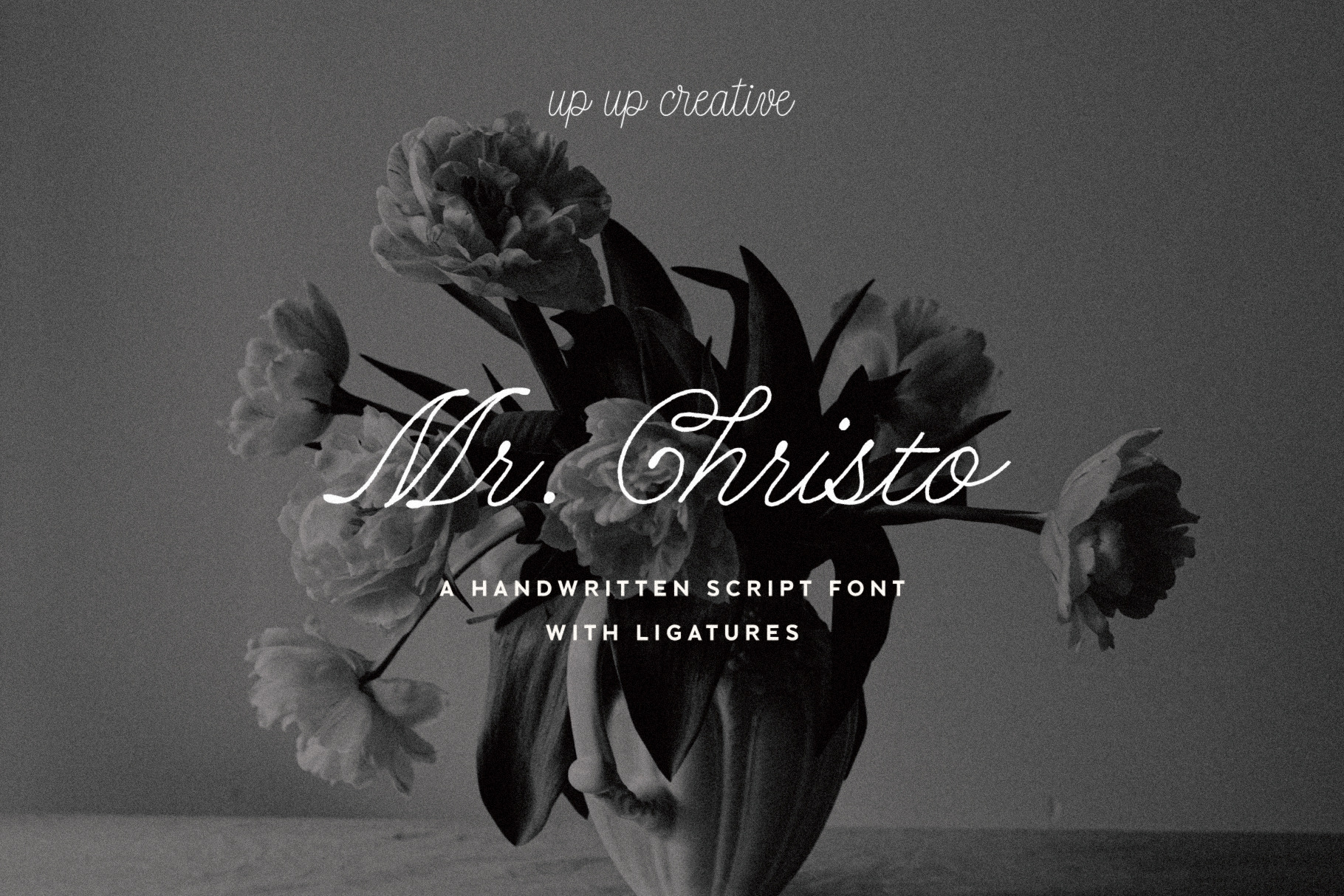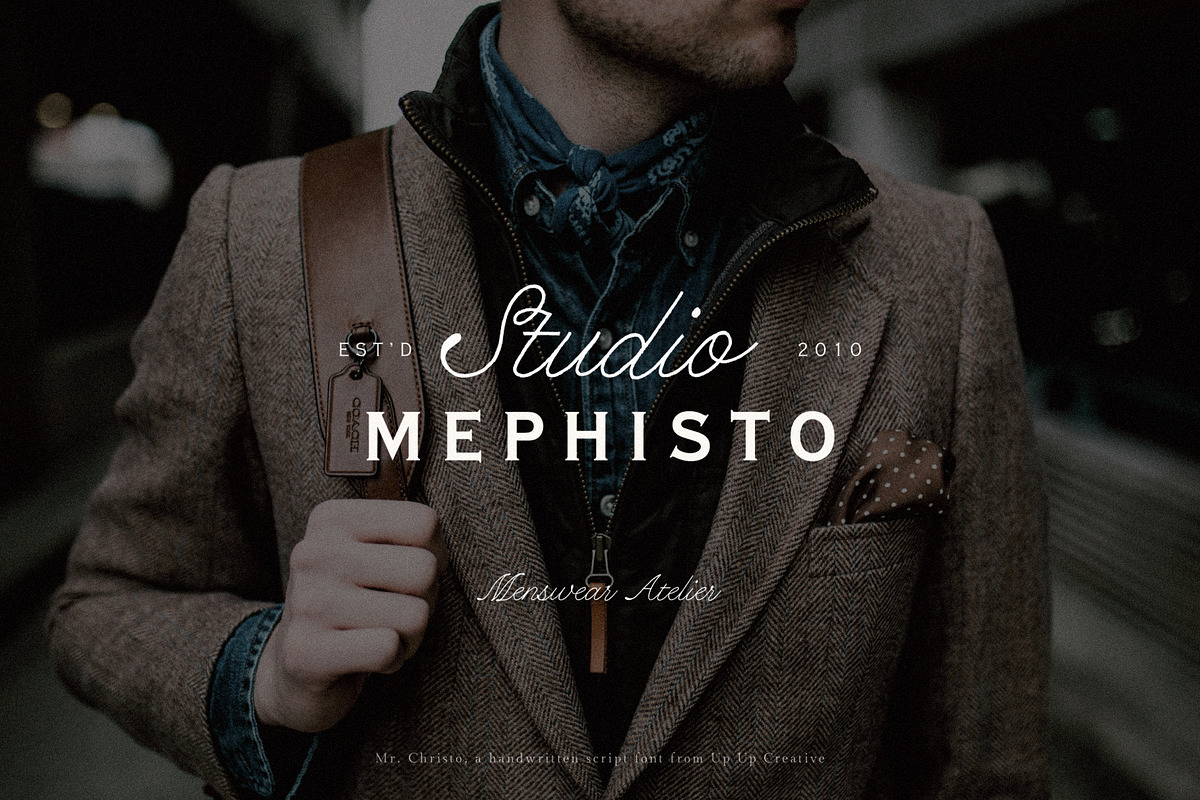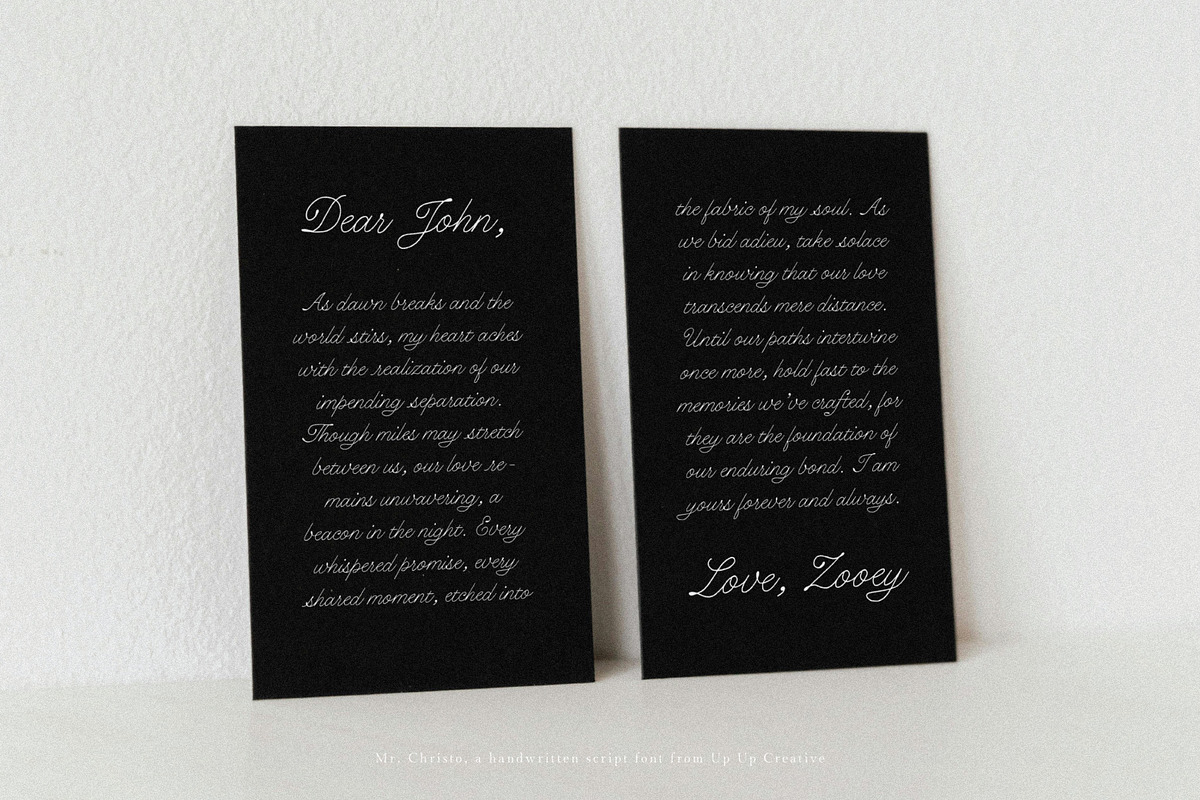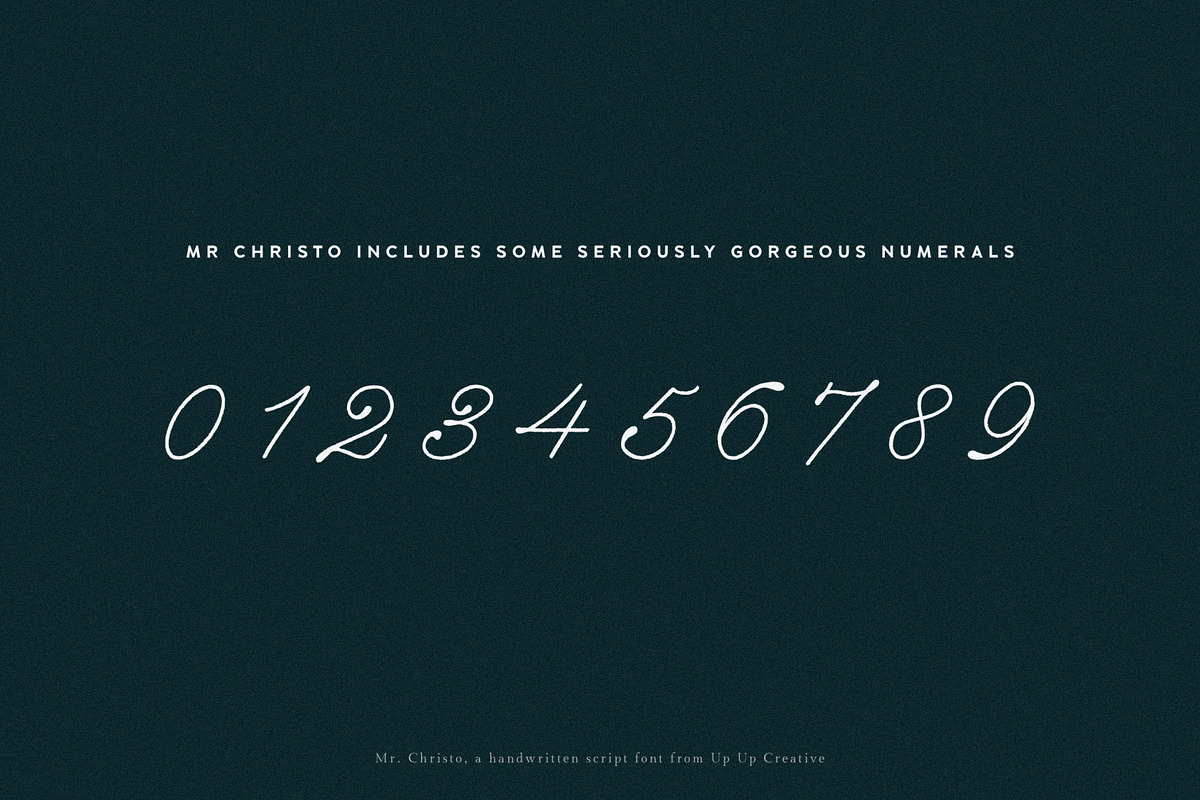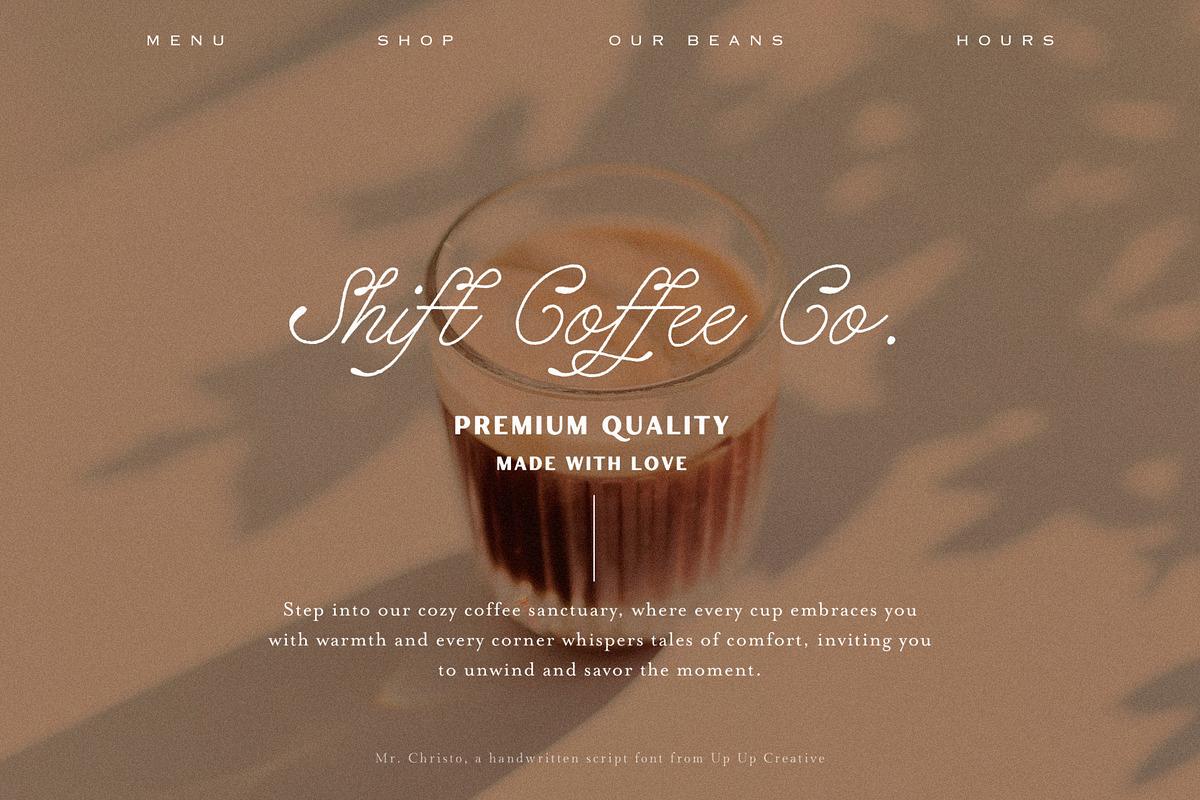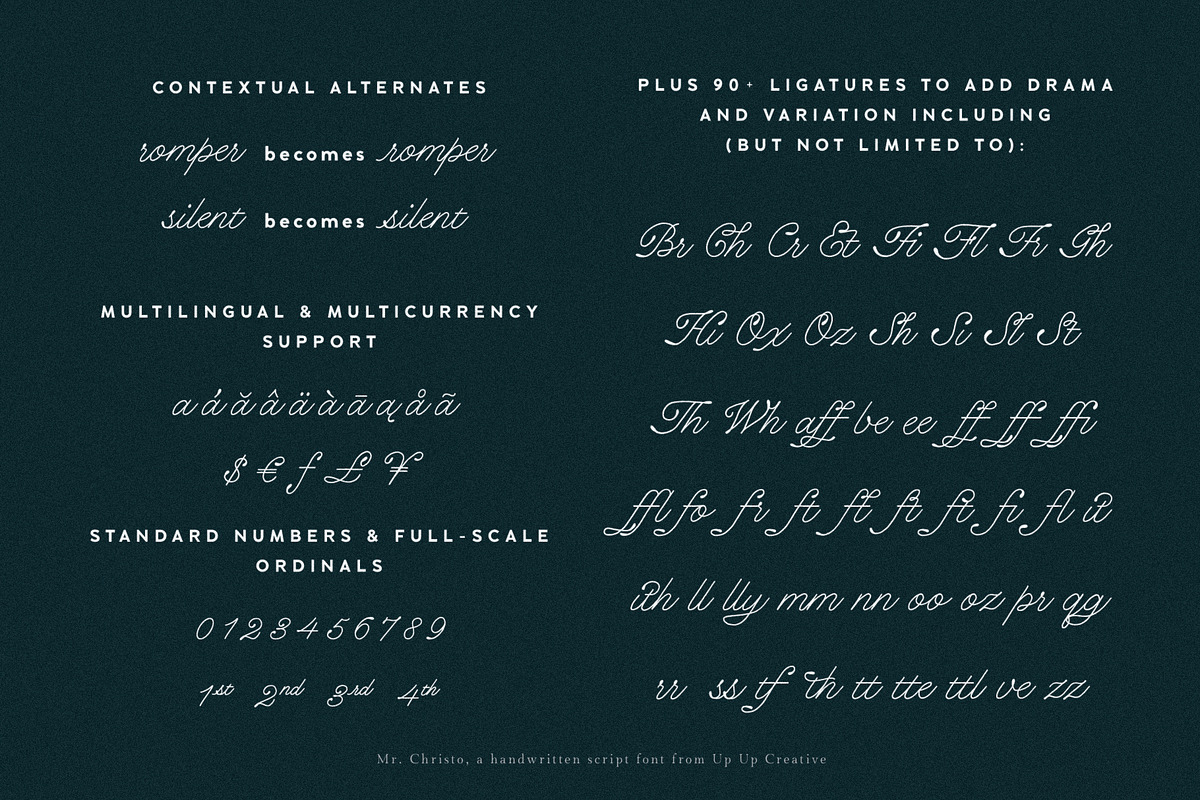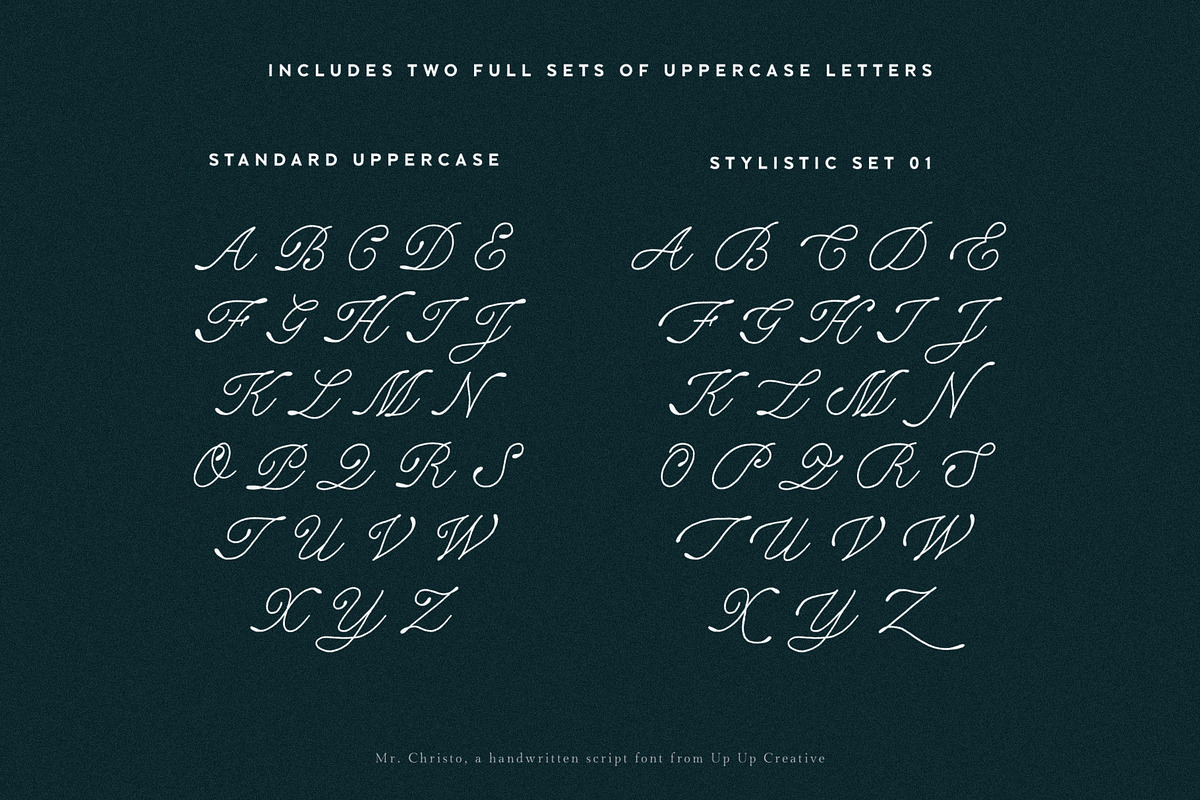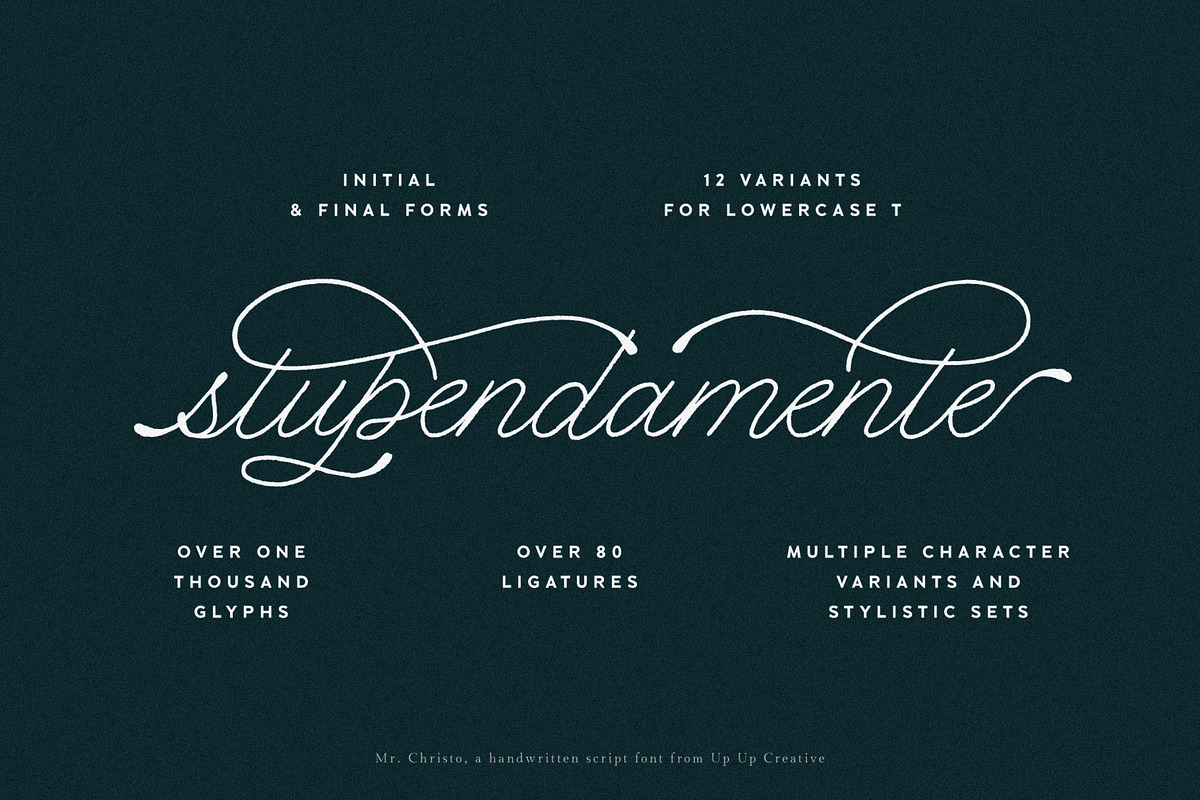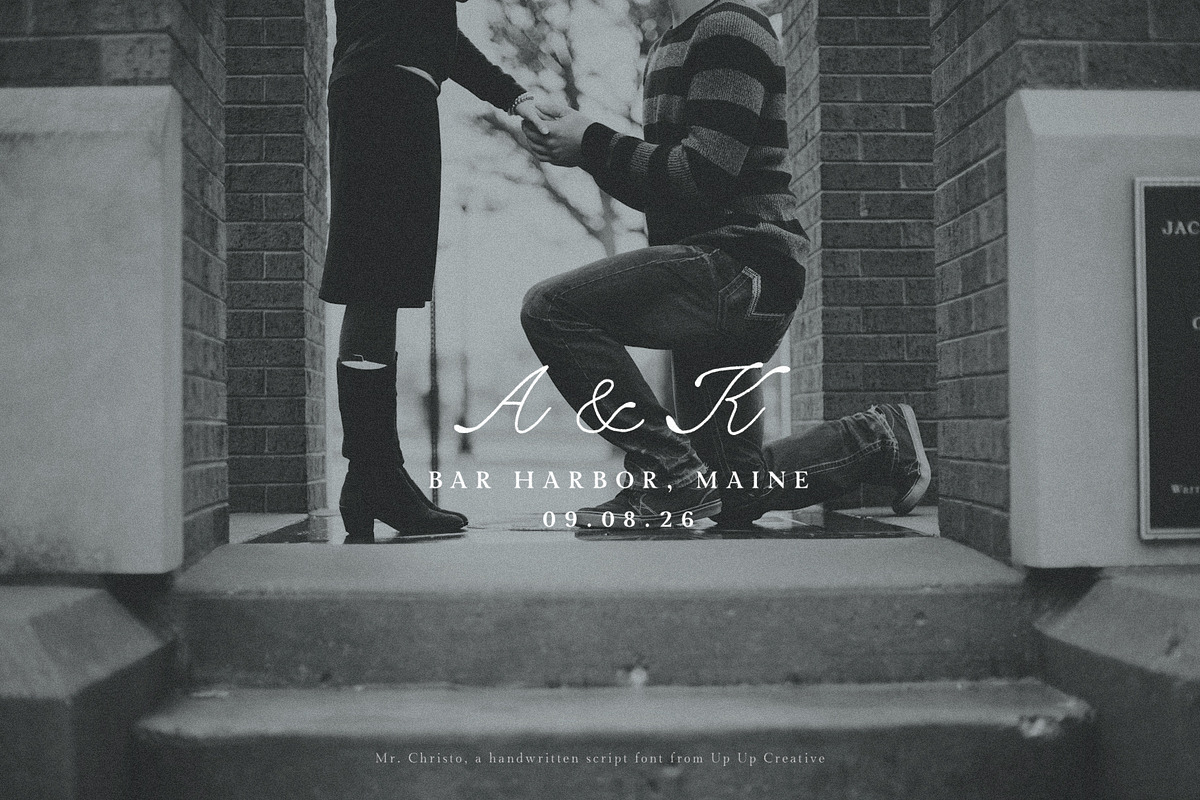
Mr Christo Calligraphy Script Font
Meet Mr. Christo, a charming, elegant script font designed to elevate your projects to new heights. Its friendly yet sophisticated appearance makes it a versatile choice. What’s more, it’s packed with features that ensure it's as useful as it is delightful.
Mr. Christo includes 1031 glyphs — including 95 ligatures — and supports 200 languages. It’s also chock-full of OpenType features from stylistic sets to character variants to initial and final forms.
Mr. Christo is a display font ideal for branding, wedding suites, headlines, editorial use, large type, and calls to action.